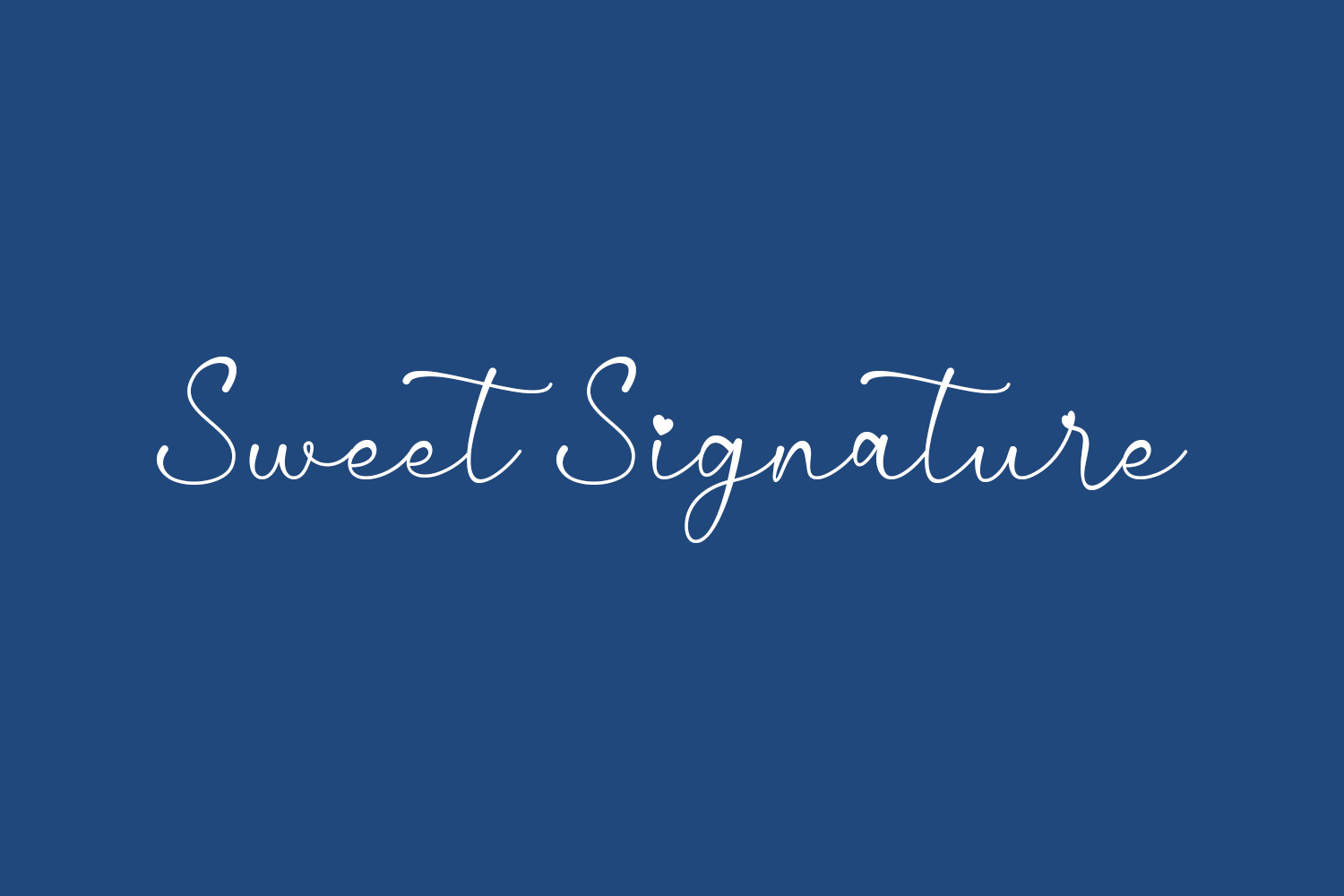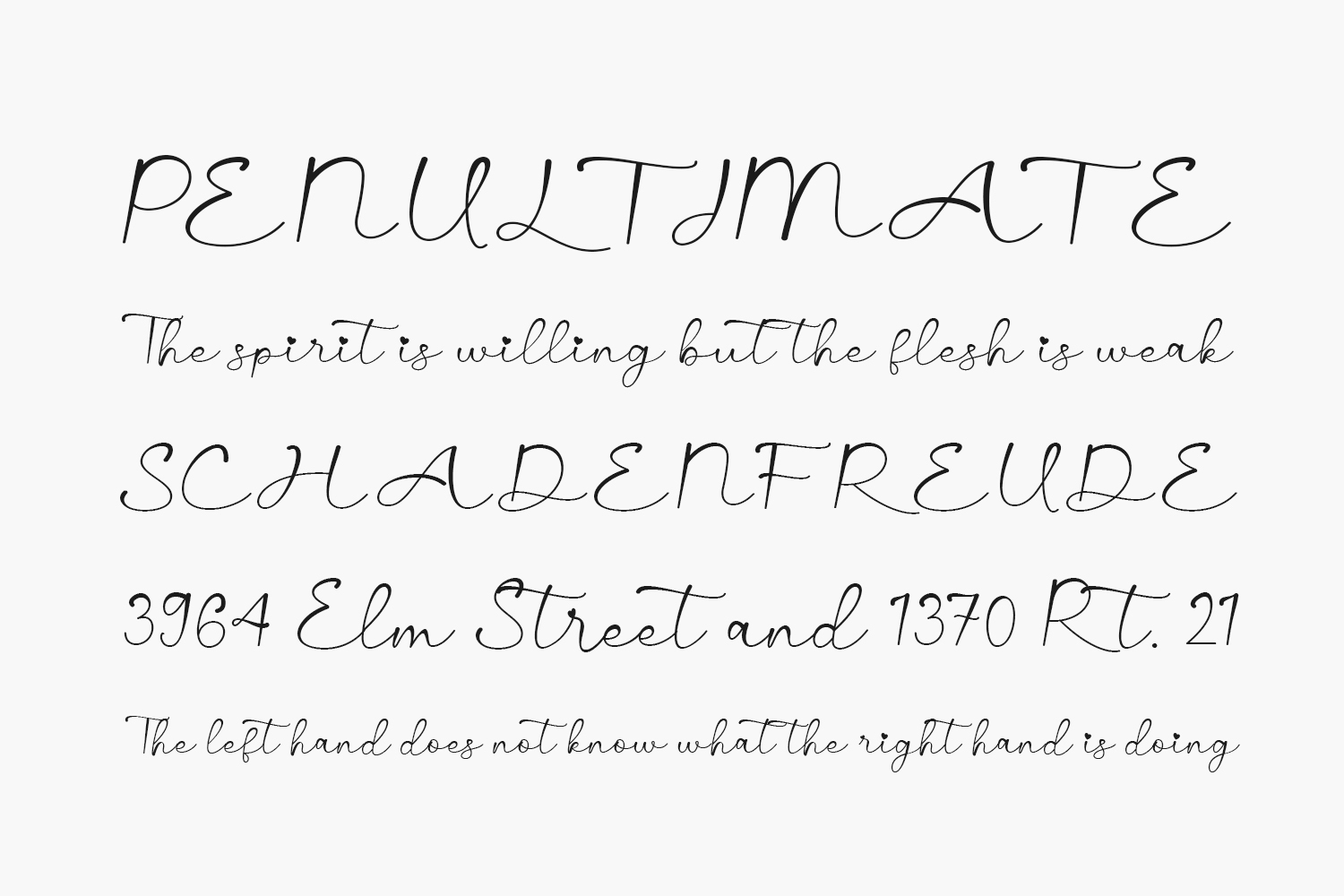
Indulge in the charm of Sweet Signature Free Font, a delightful handwritten font where characters gracefully sway along the baseline. Elevate your design projects with a touch of luxury and romance. Sweet Signature Free Font was designed by AEN Creative Studio and is free for personal use only. Please purchase the full version for commercial use.